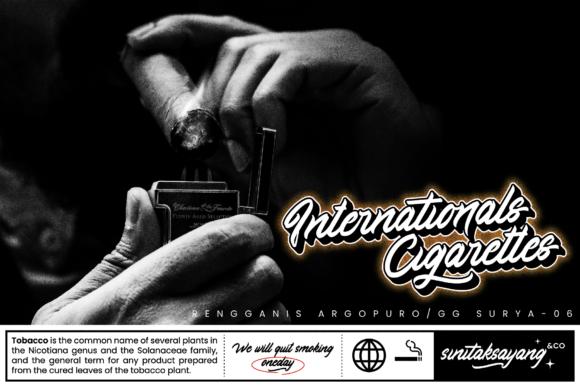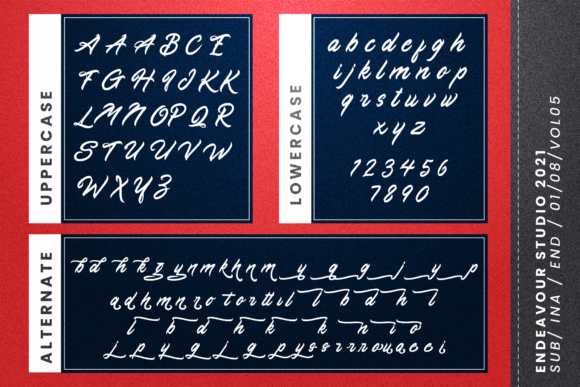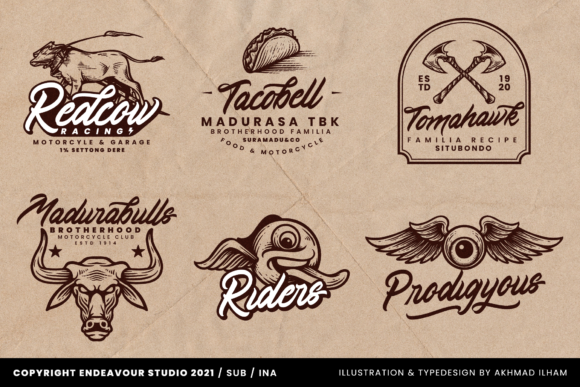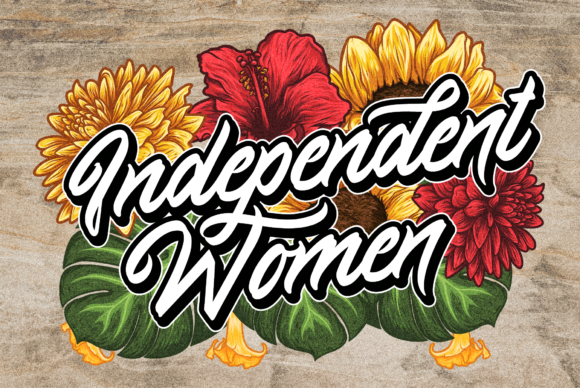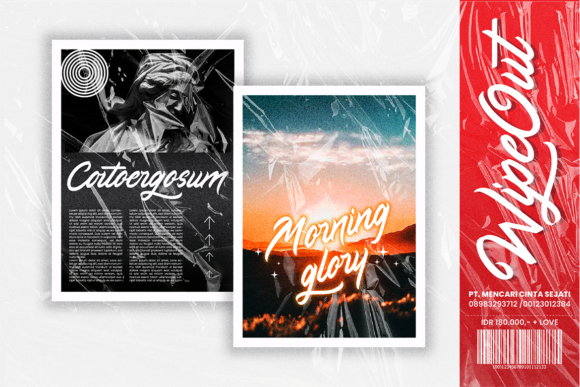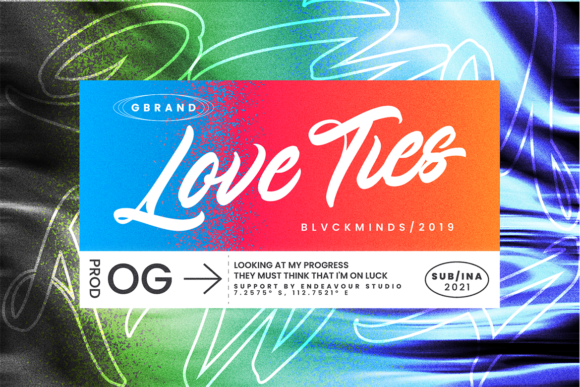
Introduction to Rengganis Argopuro Font Font
Fonts play a crucial role in design, and the Rengganis Argopuro Font font is a typeface that brings both character and versatility to any project. Whether you’re working on a branding project, a website, or a print design, the Rengganis Argopuro Font font offers a unique style that can elevate your work.
Rengganis Argopuro is a lovely script font featuring charming, playful characters that seem to dance along the baseline.
Add this font to your most creative ideas, and notice how it makes them stand out Rengganis Argopuro is PUA encoded which means you can access all of the glyphs and swashes with ease.
Key Features of Rengganis Argopuro Font Font
Why Choose Rengganis Argopuro Font Font?
The Rengganis Argopuro Font font is more than just a typeface – it’s a design tool that helps you communicate your message with style and clarity. Its unique character set and versatile design make it suitable for a wide range of applications, from elegant invitations to bold headlines.
With its carefully crafted letterforms and balanced proportions, the Rengganis Argopuro Font font ensures readability and visual appeal across all mediums.
What makes Rengganis Argopuro Font font special?
The Rengganis Argopuro Font font stands out with its unique design, exceptional readability, and versatility across various design applications.